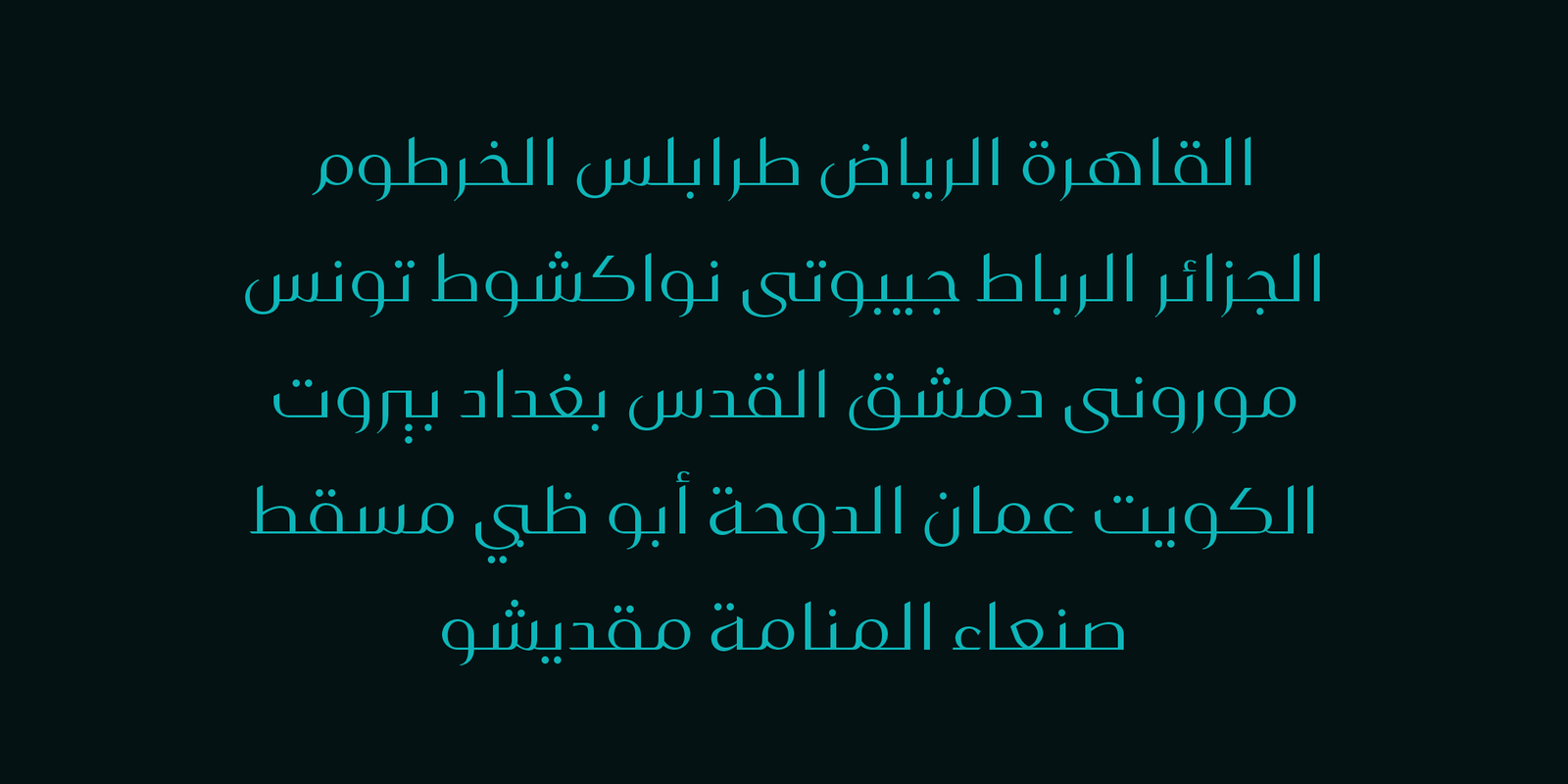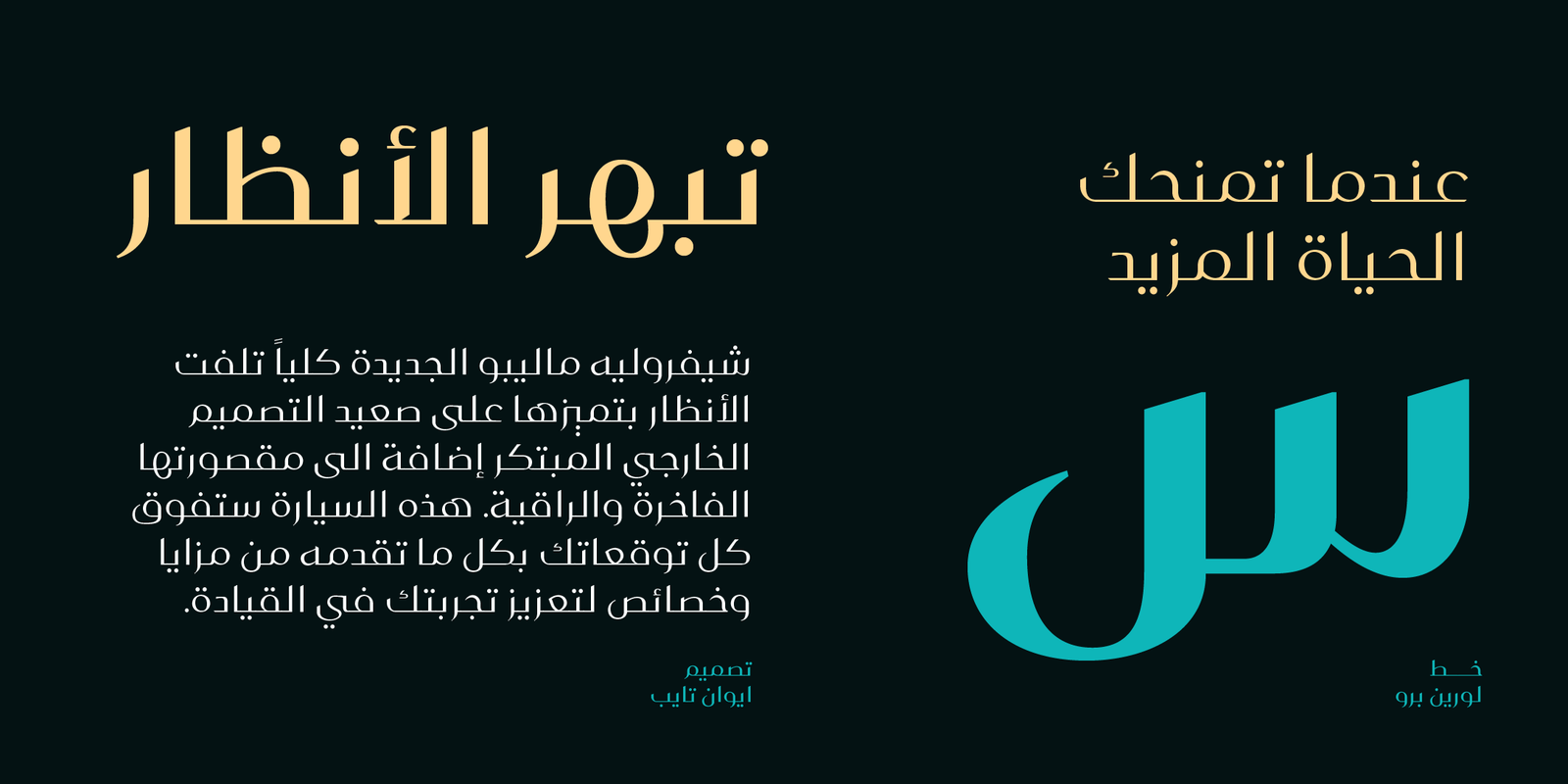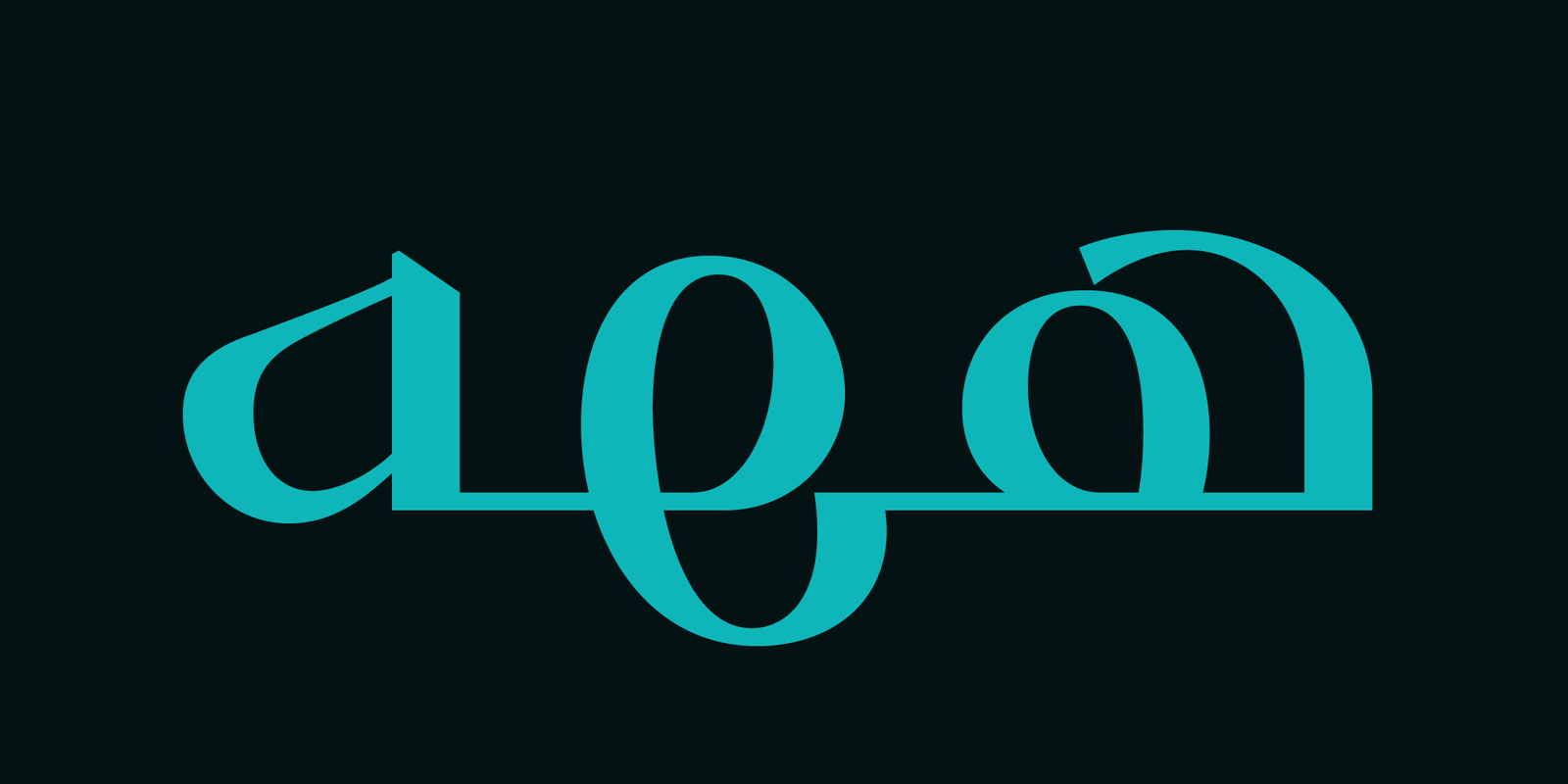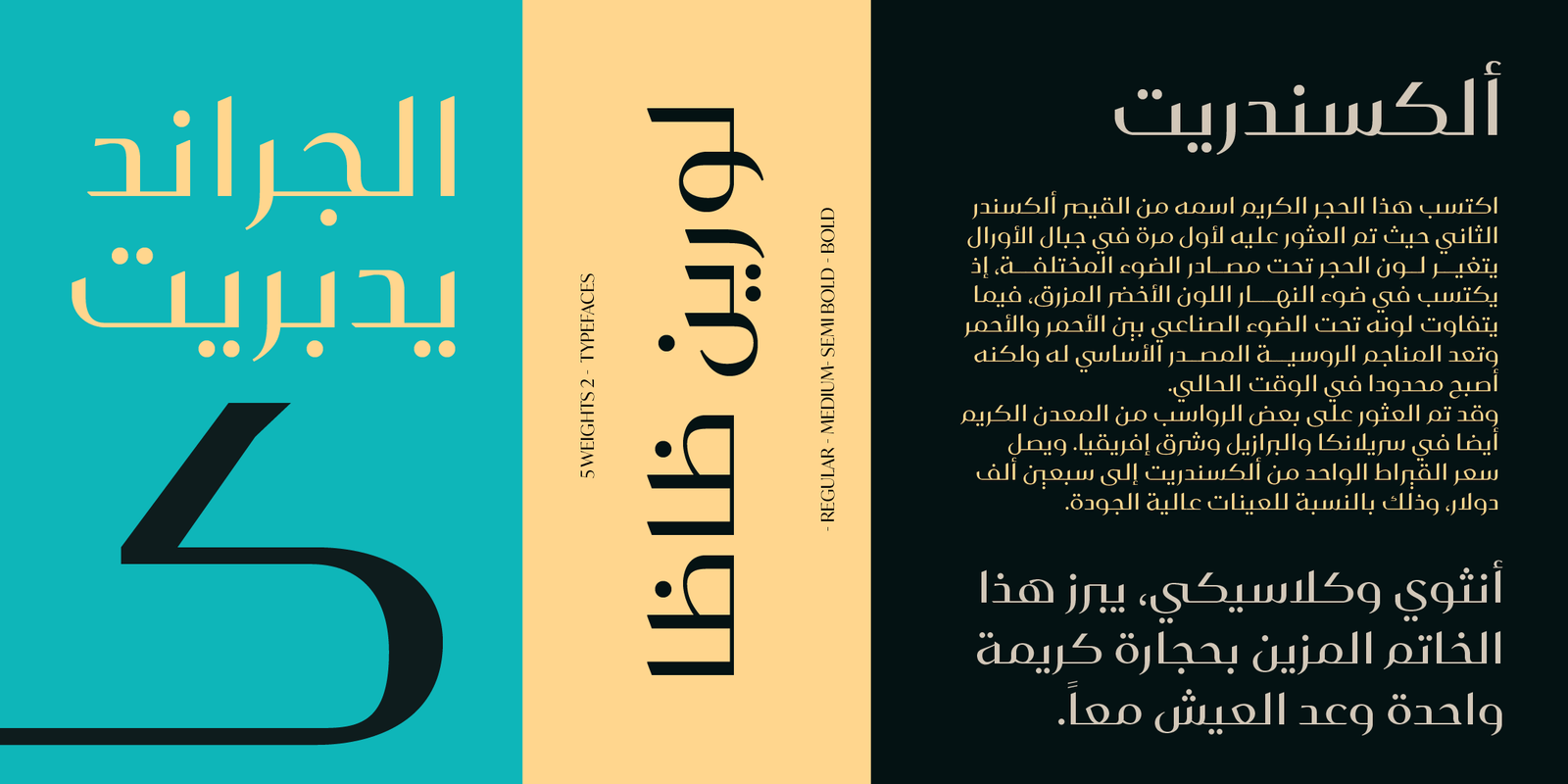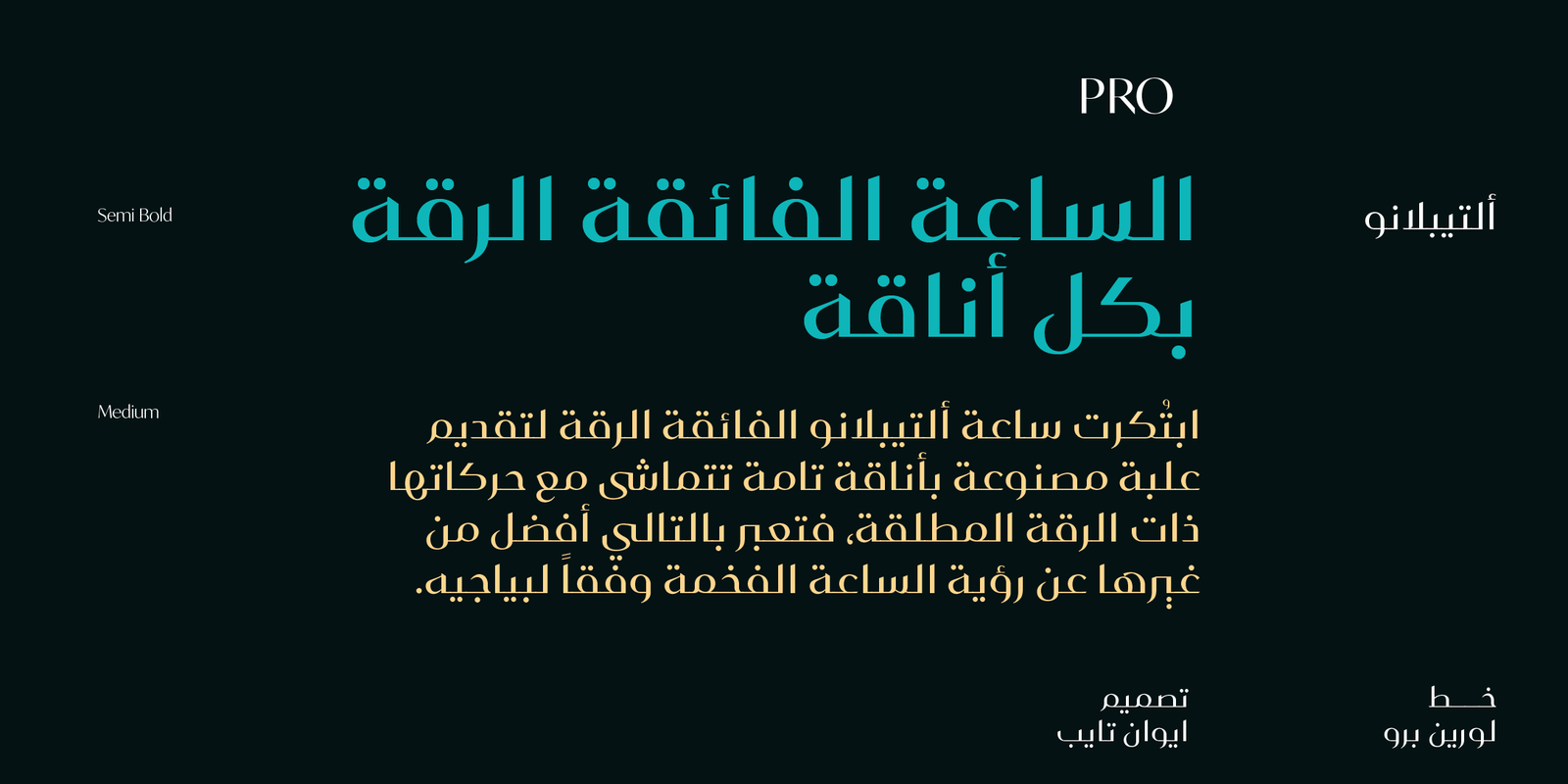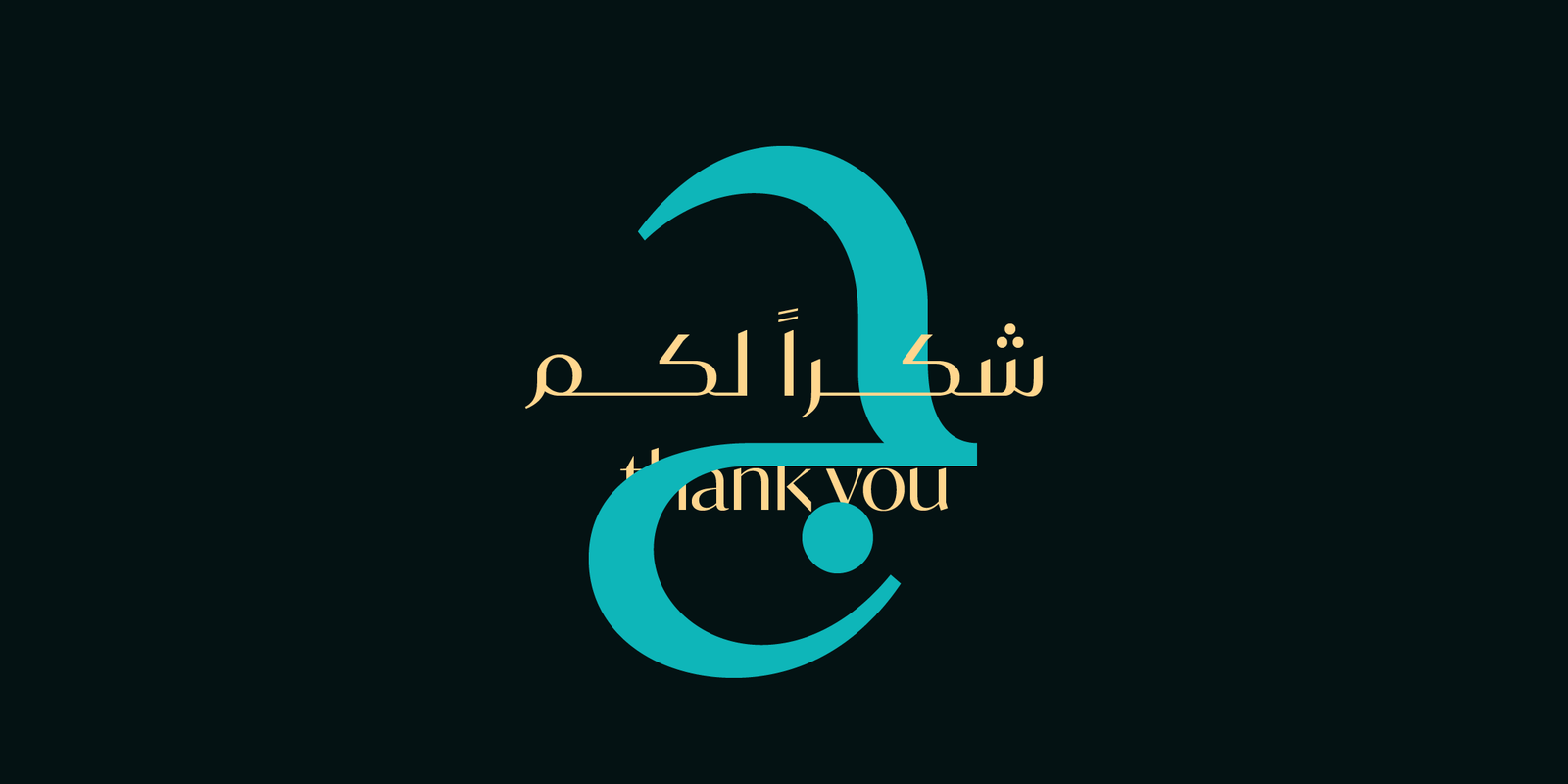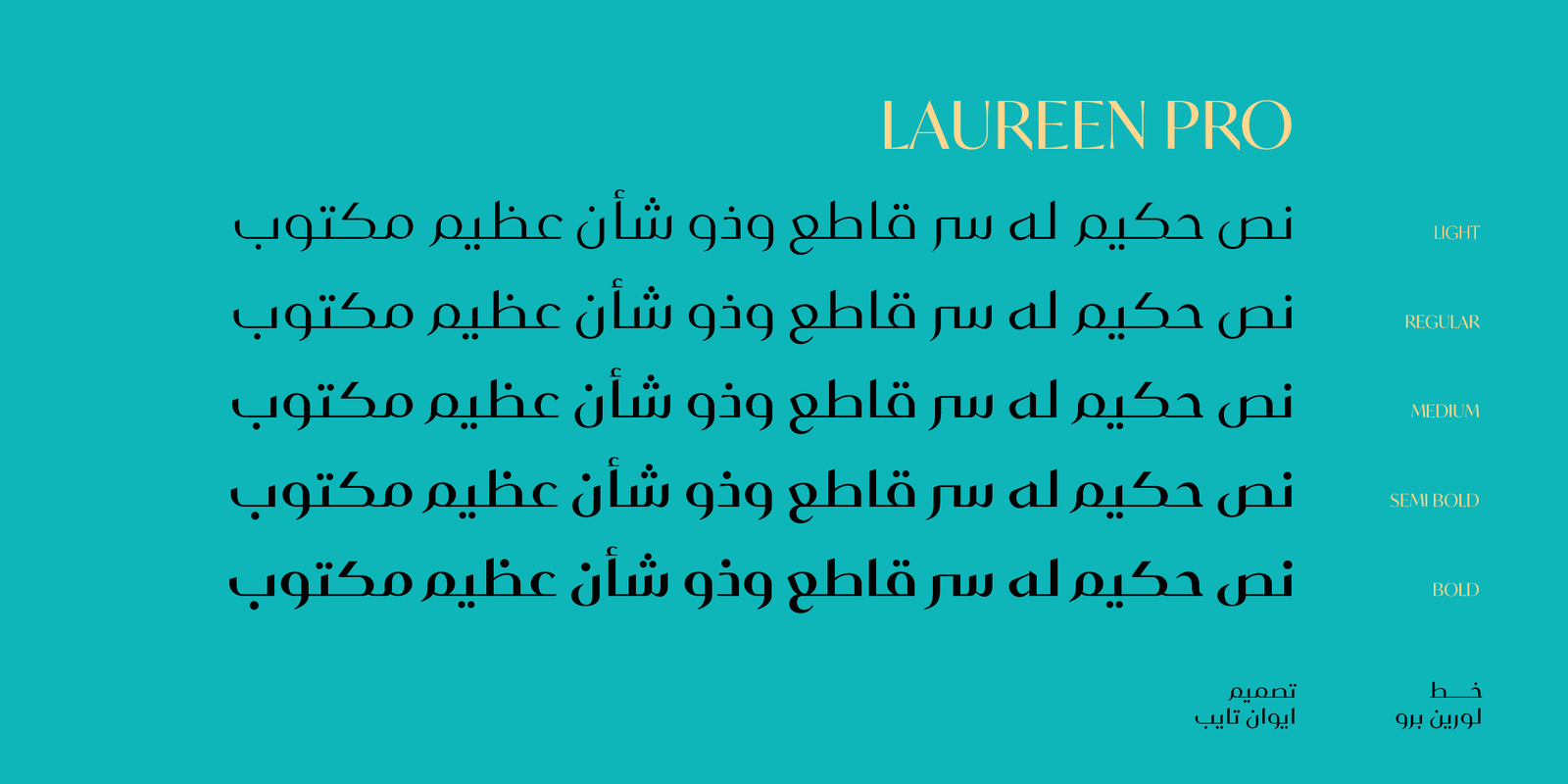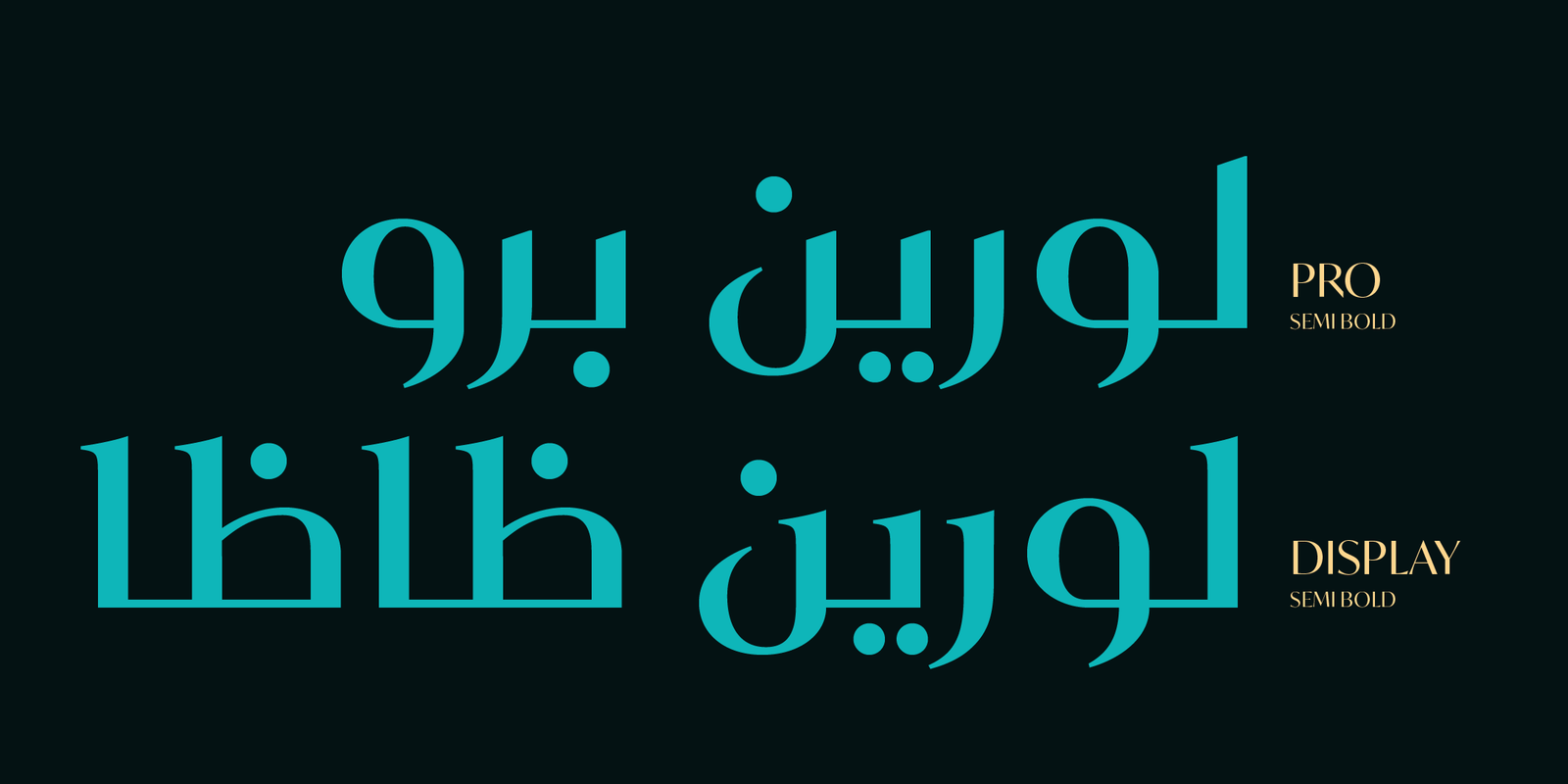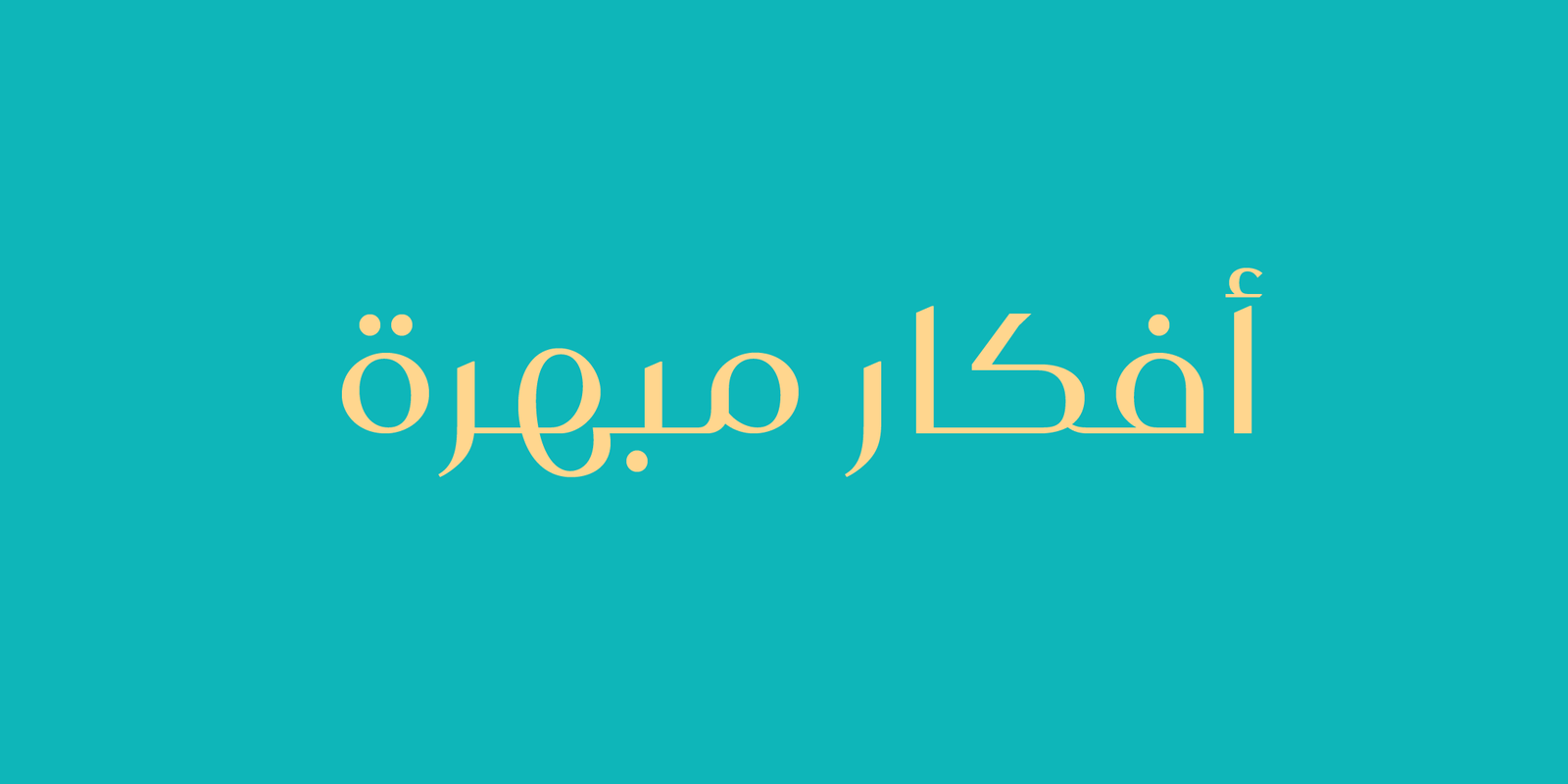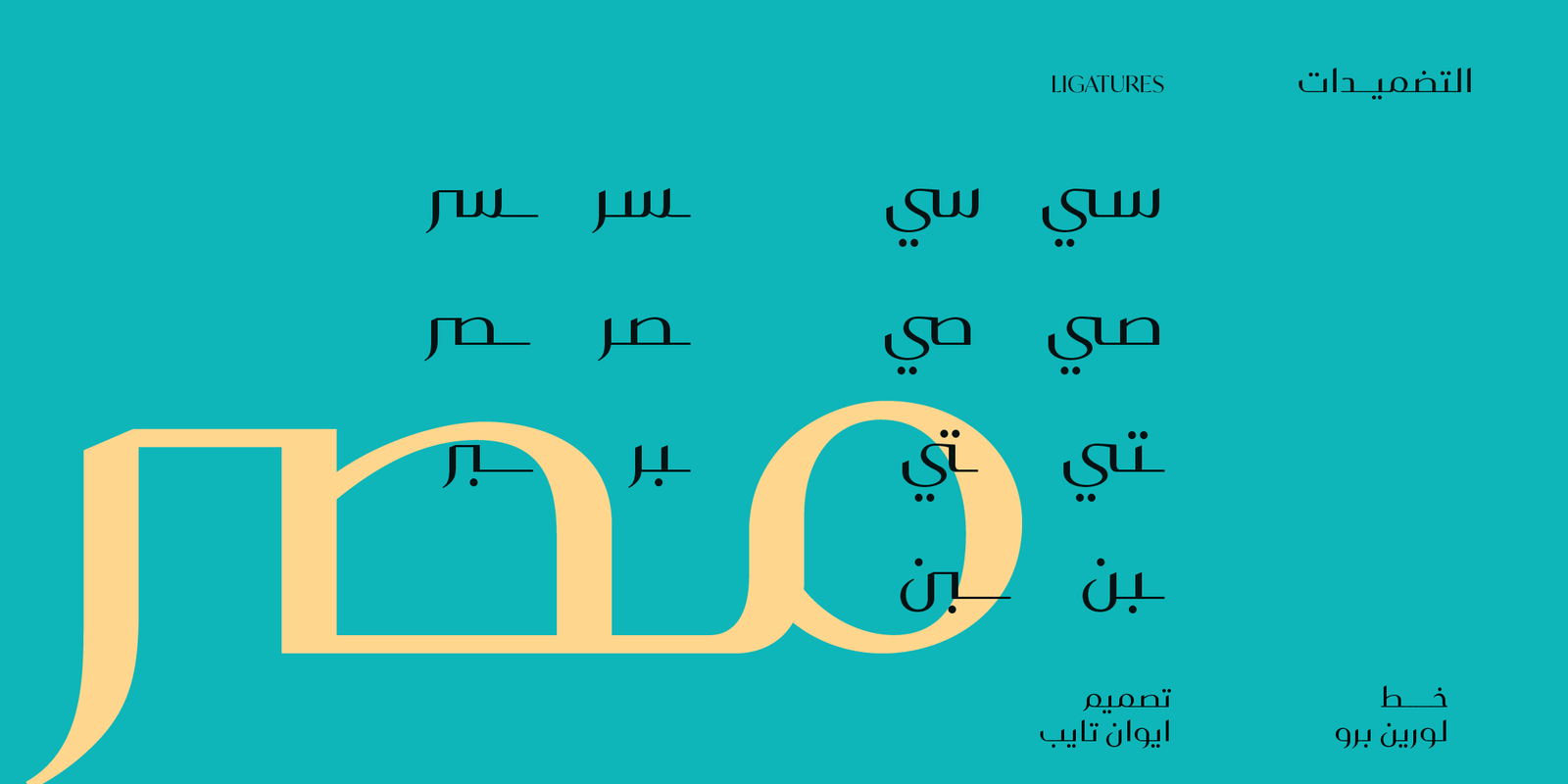
Laureen Pro – خط لورين برو
Laureen pro is an Arabic typeface that has a very particular appearance. It combines the characteristics of different genres; most notably the contrast of serif faces. While its design is influenced by Kufic and the Naskh style.
Laureen pro consists of two typefaces, text and display, and 4-weights.
It’s a perfect choice for bold headlines, oversize typography, fashion logos, branding, identity, website design, album art, covers, posters, advertising, etc.
خط لورين برو
لورين برو هو خط عربي طباعي ذو مظهر خاص جدا. يجمع بين خصائص الأنواع المختلفة. بينما يتأثر تصميمه أسلوب الكوفي والنسخ
إنه اختيار مثالي للعناوين الرئيسية الجريئة والطباعة كبيرة الحجم وشعارات الموضة والعلامات التجارية والهوية وتصميم موقع الويب وفن الألبوم والأغلفة والملصقات والإعلانات وما إلى ذلك.